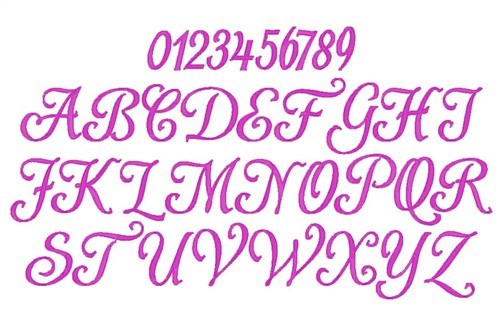
Ballerina Embrilliance Embroidery Font - Flowing Script Handwriting - BX font by Unicorn Creatives and other embroidery fonts available at EmbroideryDesigns.com.
Unicorn Creatives is happy to present Ballerina Embrilliance Embroidery Font - Flowing Script Handwriting - BX font machine embroidery font which has Script-style machine embroidery font with a flowing design, ideal for personalizing dance bags and apparel. The charming pink hue of 'Ballerina' enhances its artistic appeal. Available in BX font and Embrilliance formats. included. If you would like to view more embroidery fonts and alphabets please search our embroidery fonts page.
Ballerina Embrilliance Embroidery Font - Flowing Script Handwriting - BX font